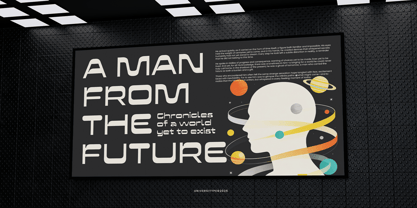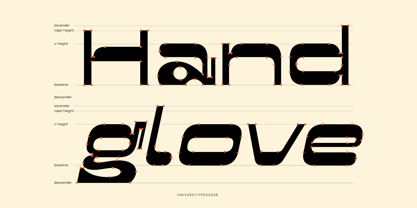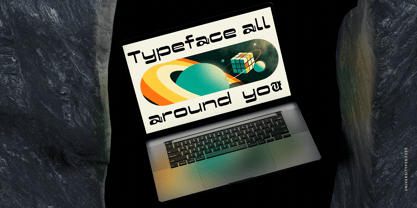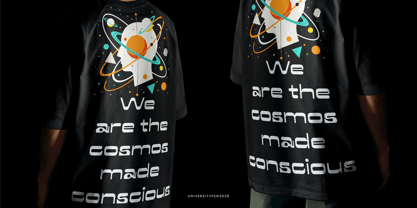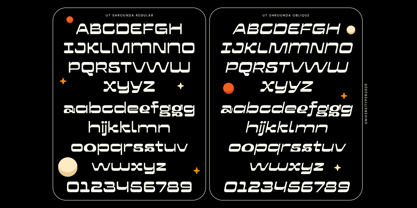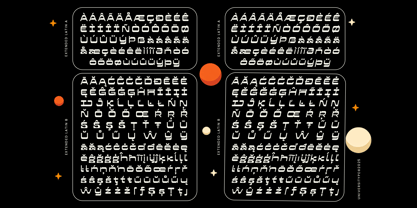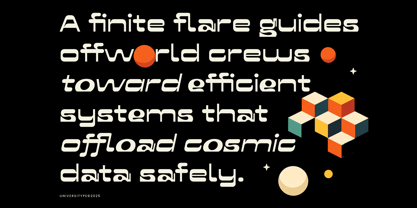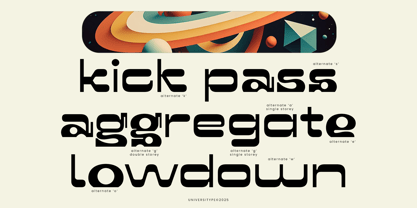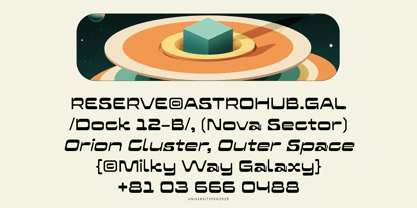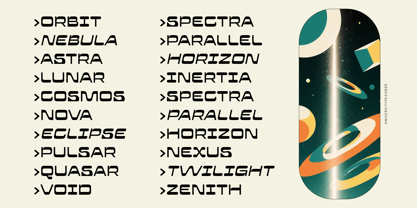
UT Shrounda
Die Schriftfamilie UT Shrounda wurde von Muh. Aswar, Andi Syahdang entworfen und von Universitype veröffentlicht. UT Shrounda enthält 2 Stile und Familienpaketoptionen. Mehr über diese Familie
UT Shrounda is a bold experimental display typeface built on reversed contrast logic. Instead of stressing vertical strokes, the weight sits firmly on the horizontals, giving each letter a grounded, architectural presence. The result feels futuristic yet familiar, mechanical yet expressive. Shrounda carries a steady visual cadence that pulls the eye forward, line by line. Designed to stand out fast and stay memorable. Key Features Reversed Contrast Structure Heavy horizontals paired with slim verticals create a smooth visual flow across text. Two Complementary Styles Regular for stability, Oblique for movement and direction. Wide Language Coverage Supports 200+ languages with 435+ carefully constructed glyphs. Expanded Character Set Greek letters, math symbols, advanced punctuation, and technical marks included. OpenType Features Built-in ligatures and fraction support for refined, professional typesetting.